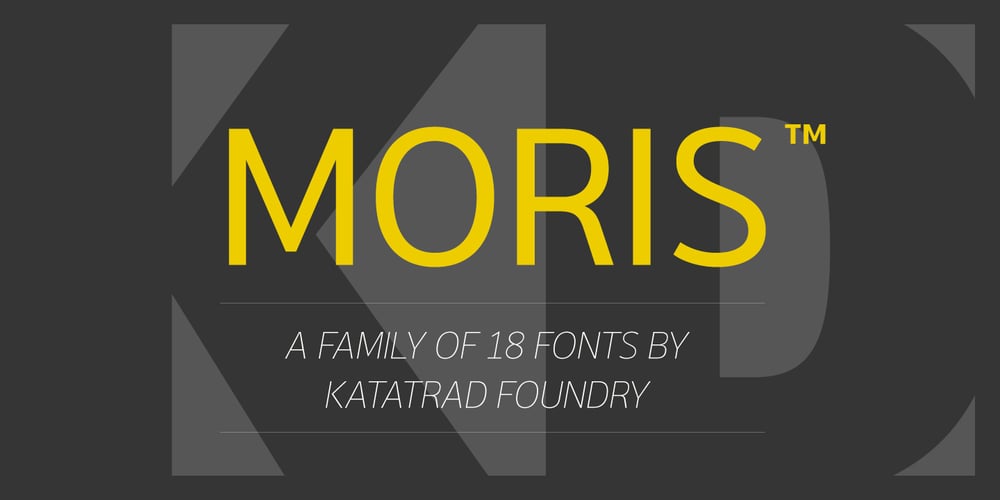
Moris
Moris font
Moris Font Family was designed by Suppakit Chalermlarp and published by Katatrad. Moris contains 18 styles and family package options. Moris™ is a family of modern sans serif typeface with simple and condensed proportions. Moris is recommended for publication, screen and Corporate use. This new font family includes nine weights with true italics, numeric tabular function and Opentype features.